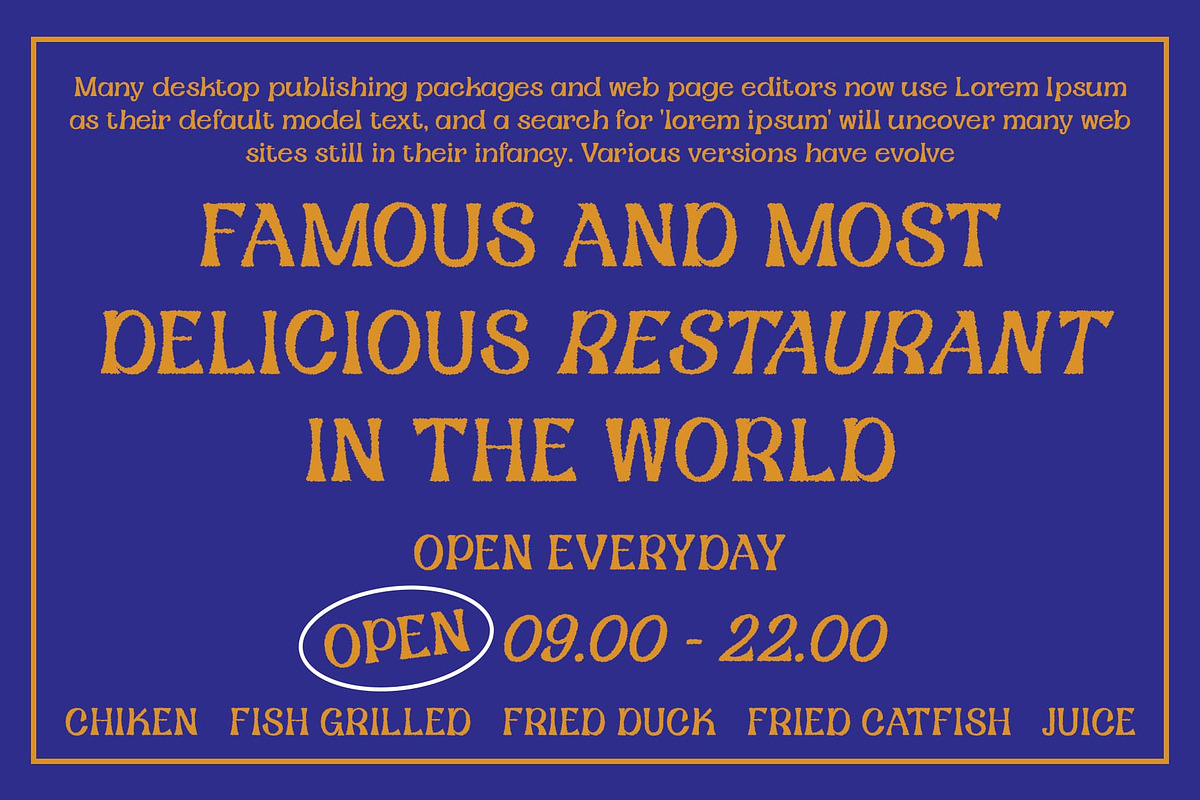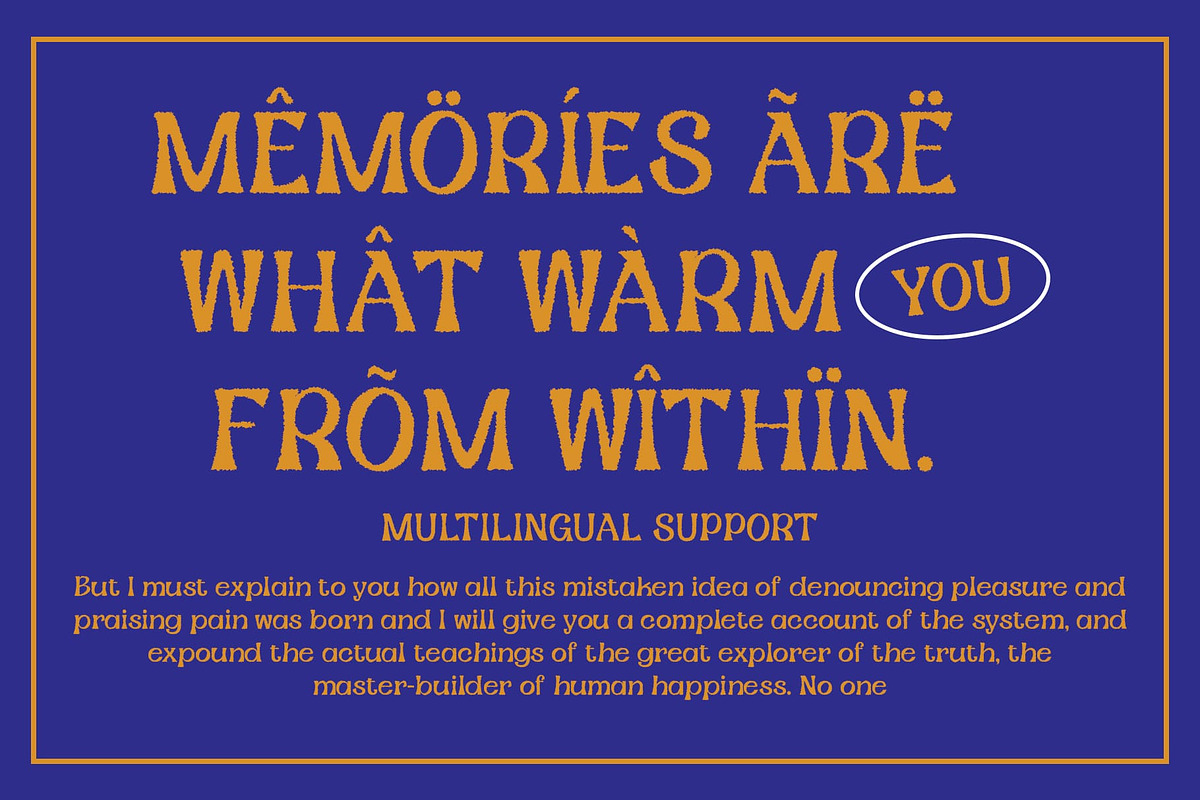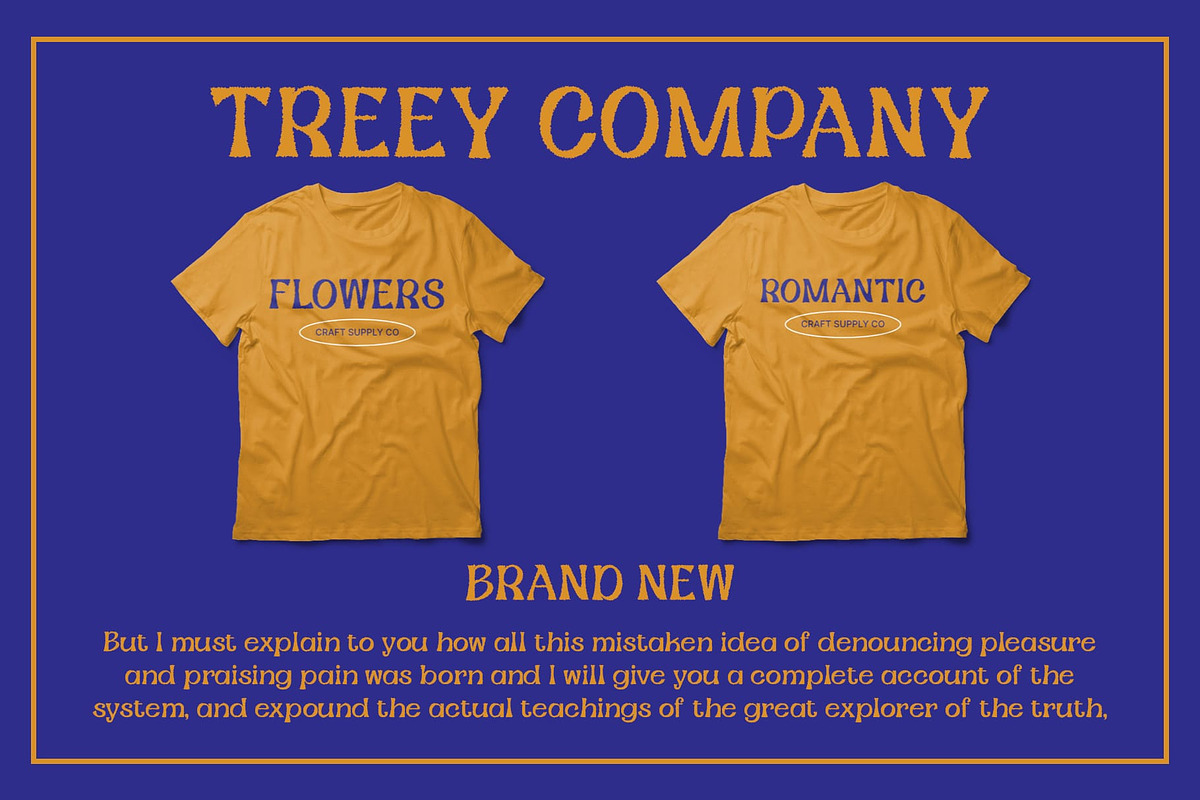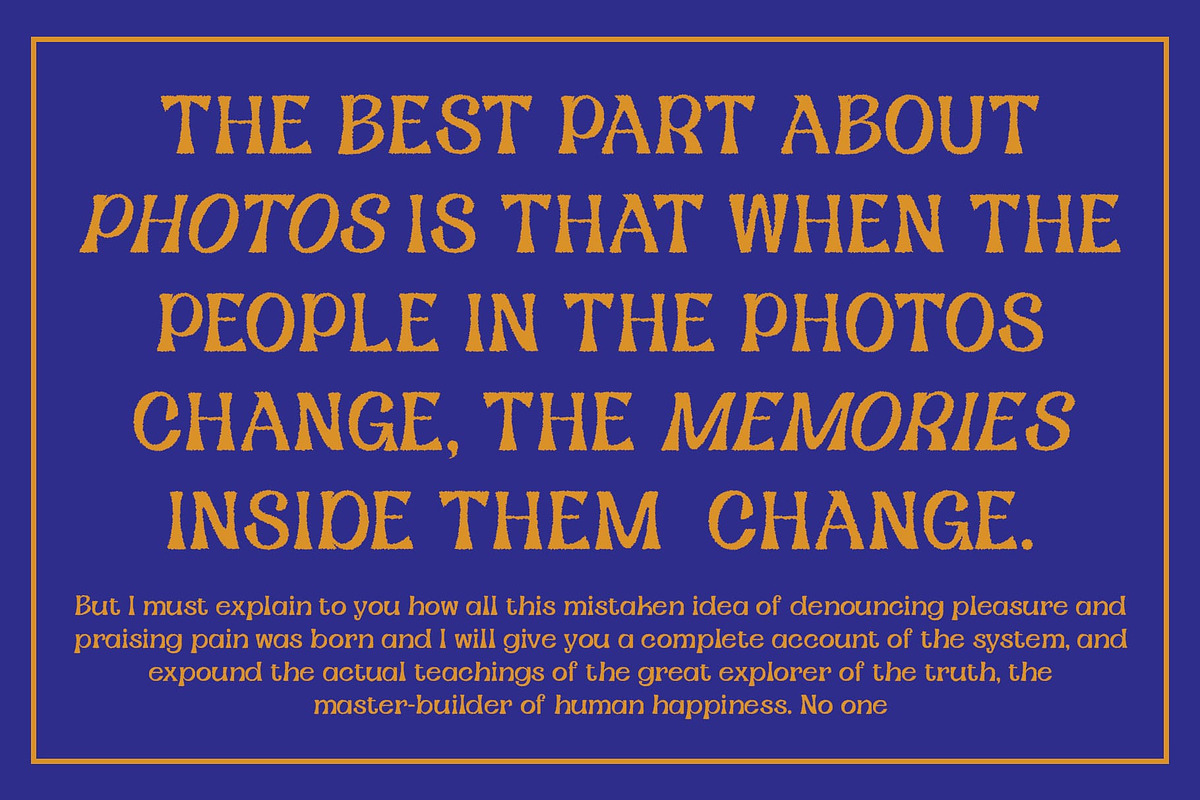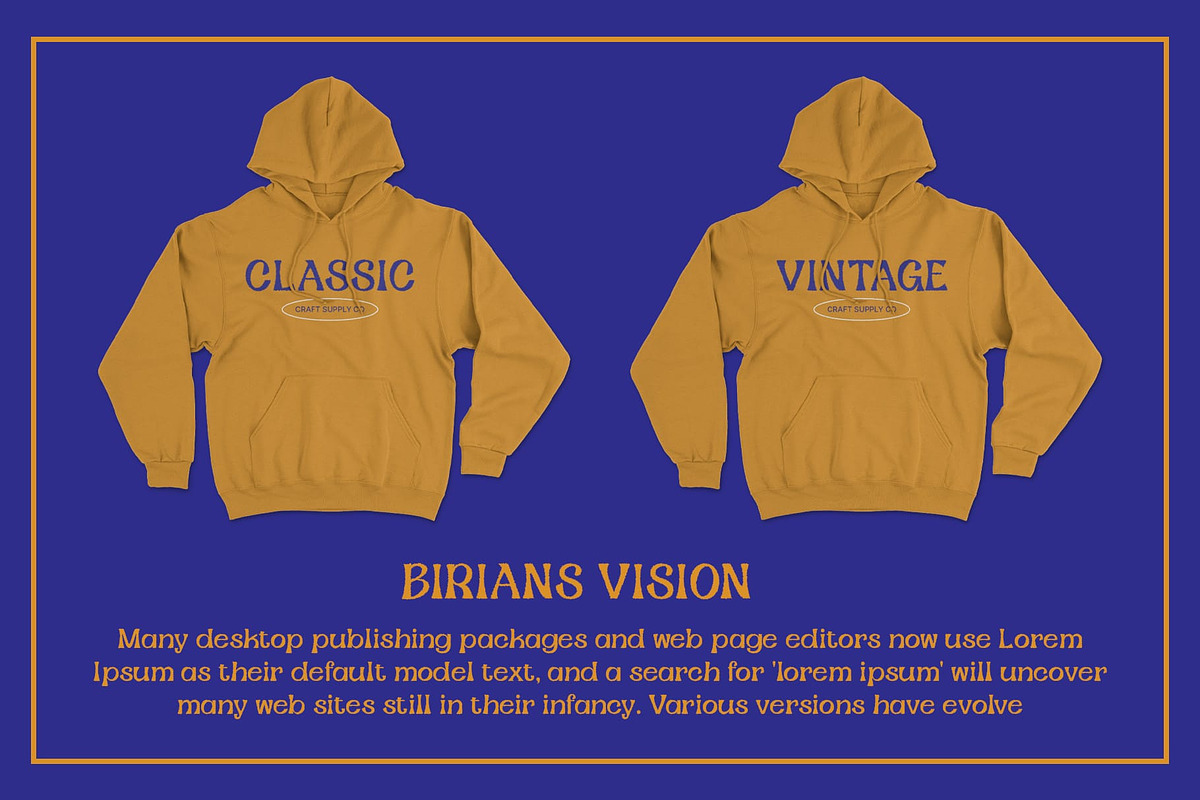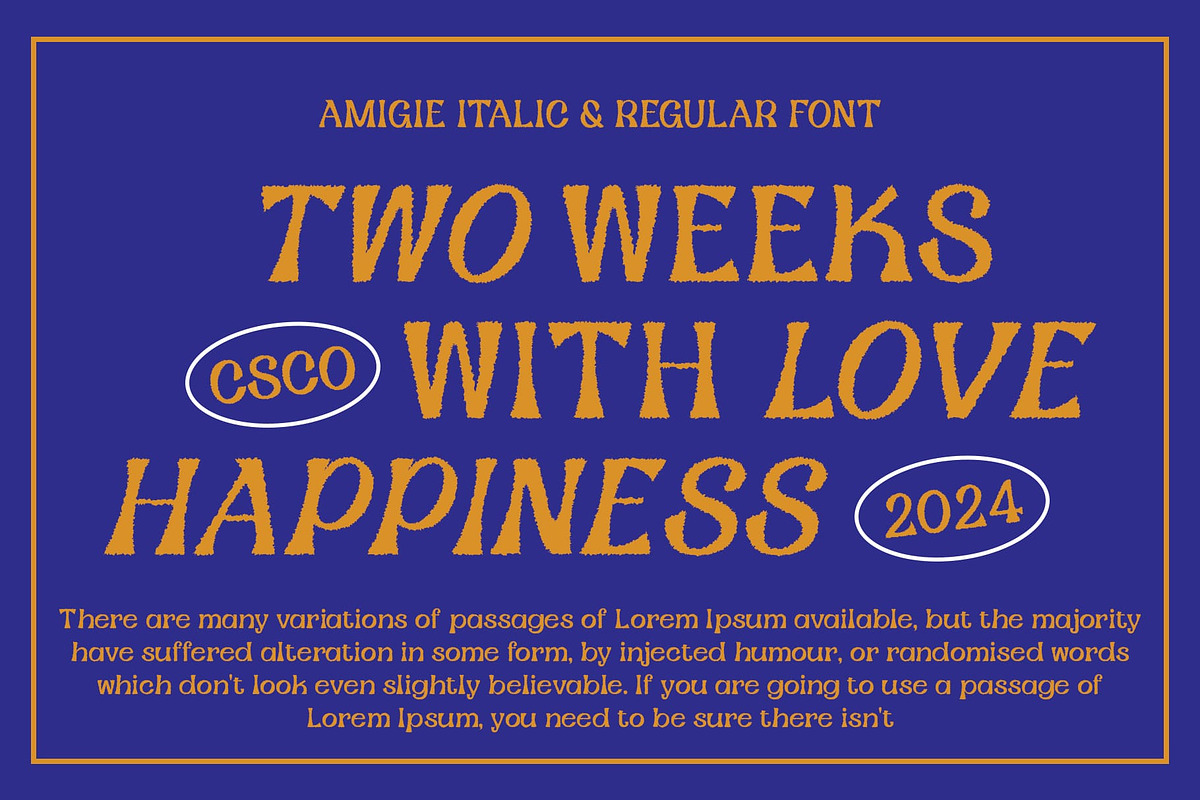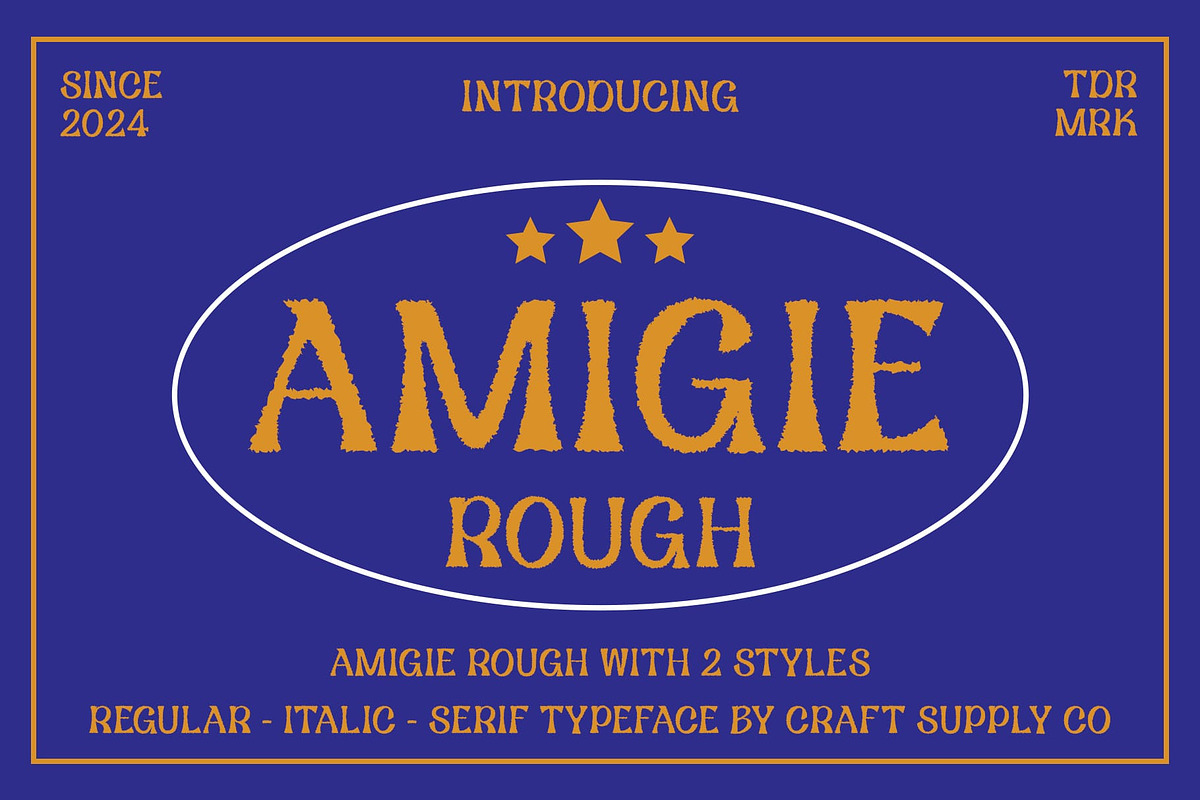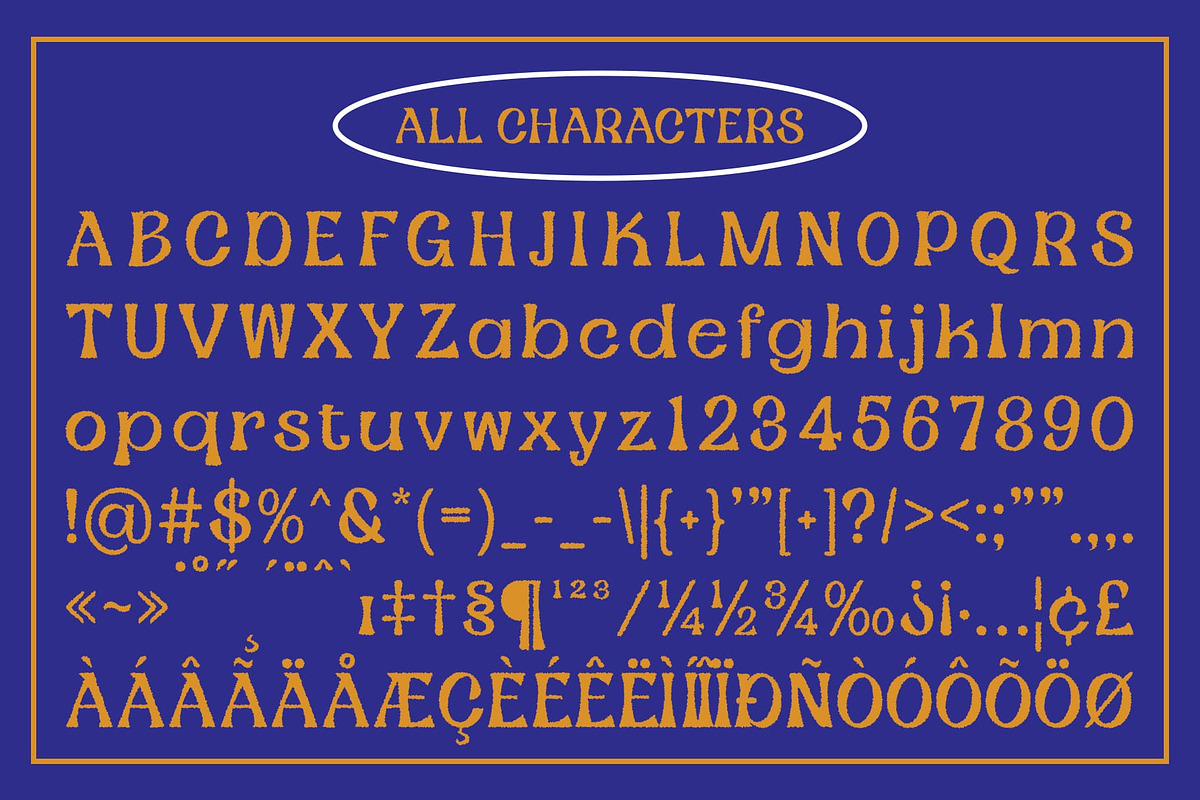
Amigie Rough
Amigie Rough: Bringing Funky Vibes to Your Designs
Funky Display Design Amigie Rough boasts a funky display design inspired by music, adding a playful and lively touch to any project. Its unconventional shapes and lively strokes exude creativity and energy.
Musical Inspiration Drawing inspiration from music, This font captures the rhythm and spirit of various musical genres. Each character resonates with the dynamic and expressive nature of music, making it perfect for projects with a musical theme.
Rough Effect Enhanced with a rough effect, This font exudes a vintage charm that adds character and depth to your designs. The textured appearance gives it a nostalgic feel, reminiscent of old vinyl records and concert posters.
Perfect for Vintage Display With its funky design and rough effect, This font is ideal for vintage-inspired display purposes. Whether used in posters, album covers, or branding materials, it adds a retro flair that catches the eye and evokes nostalgia.
Lively and Nostalgic Funkiness This font brings a unique blend of funkiness and vintage charm to your designs, inspired by the dynamic world of music. Its playful design and rough texture make it a standout choice for projects seeking to channel the spirit of music and evoke a sense of nostalgia.
- Amigie Rough Regular
- Amigie Rough Italic